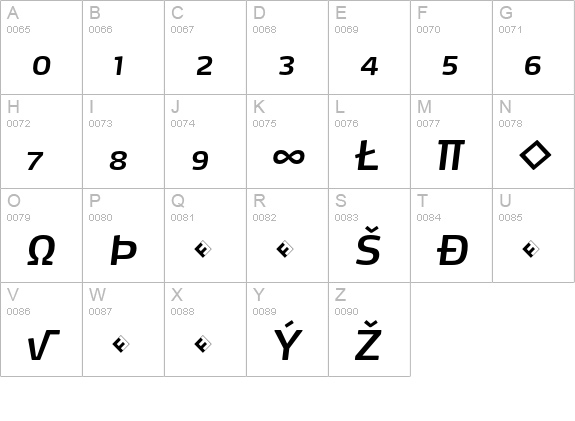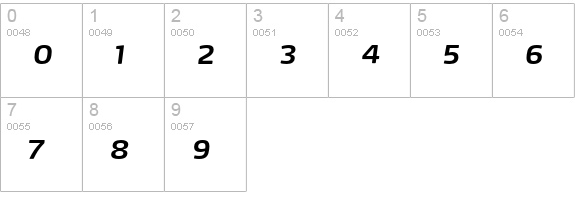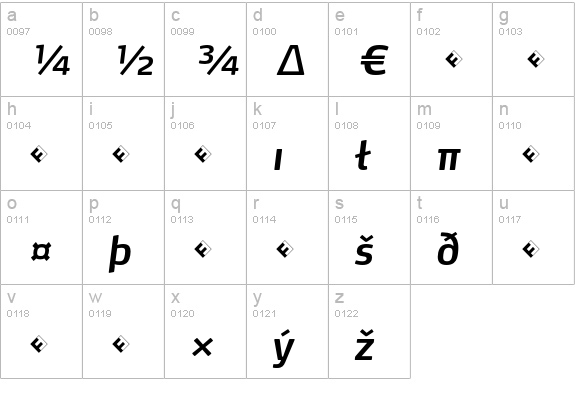
Introducing Max-SemiBoldItalicExpert font - a versatile and modern typeface that exudes confidence and sophistication. Its semi-bold weight and italic styling make it perfect for adding a touch of elegance to any design project. The Max-SemiBoldItalicExpert font strikes the perfect balance between professionalism and creativity, making it ideal for a wide range of applications. Best of all, this stunning font is available for free download at FontsMarket.com! Whether you're working on a branding project, poster design, or website layout, Max-SemiBoldItalicExpert font is sure to make a bold statement. Don't miss out on this opportunity to elevate your designs with this exceptional typeface. Download it today and let your creativity shine!